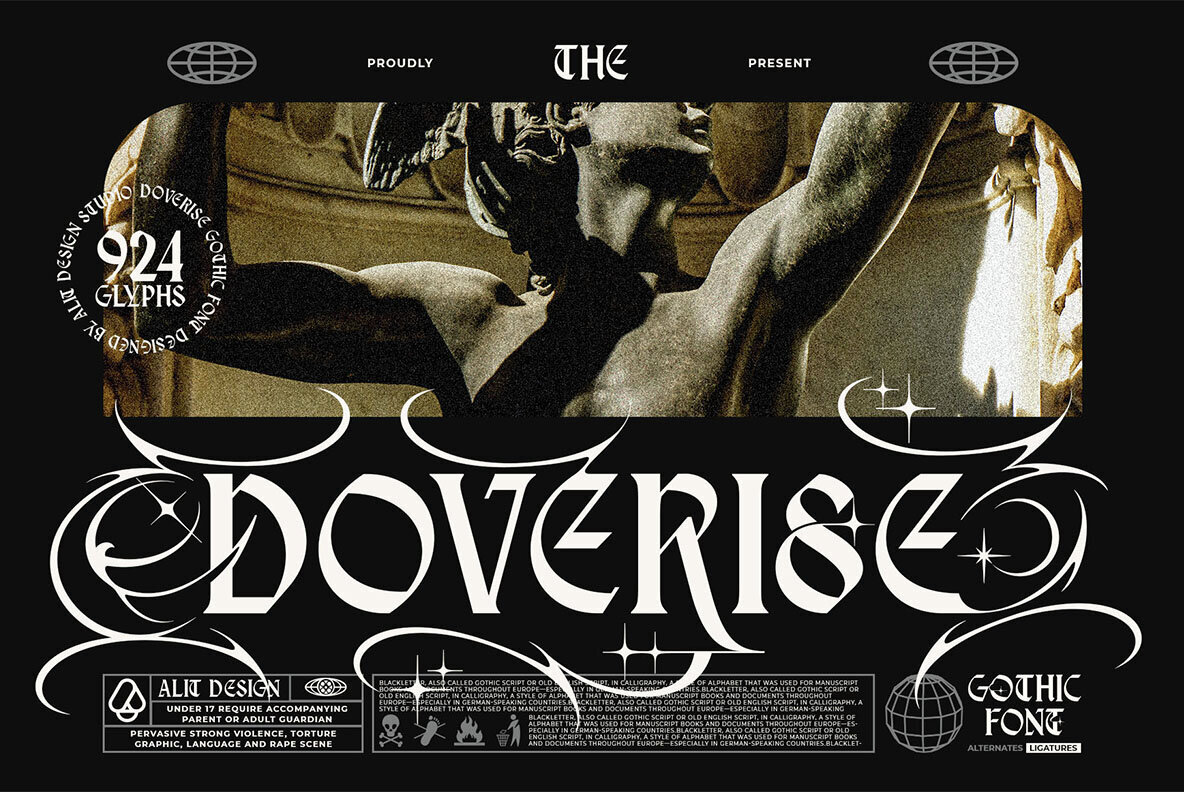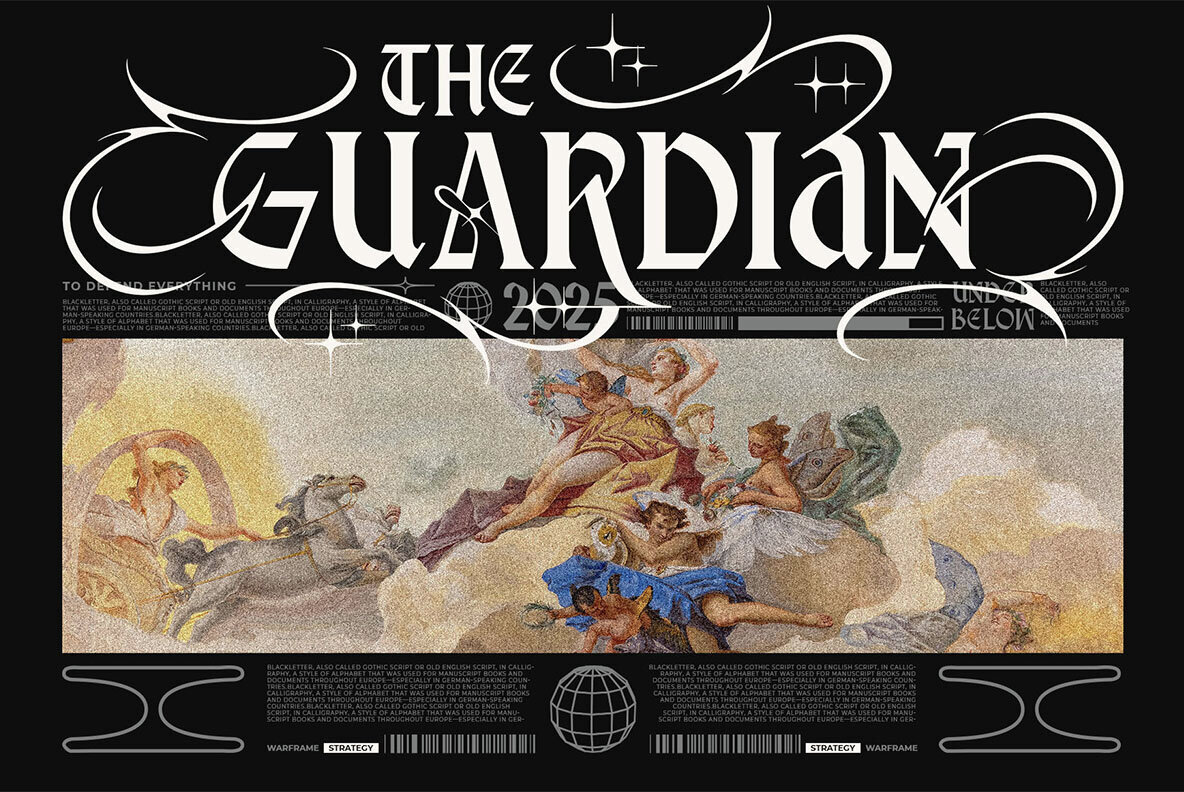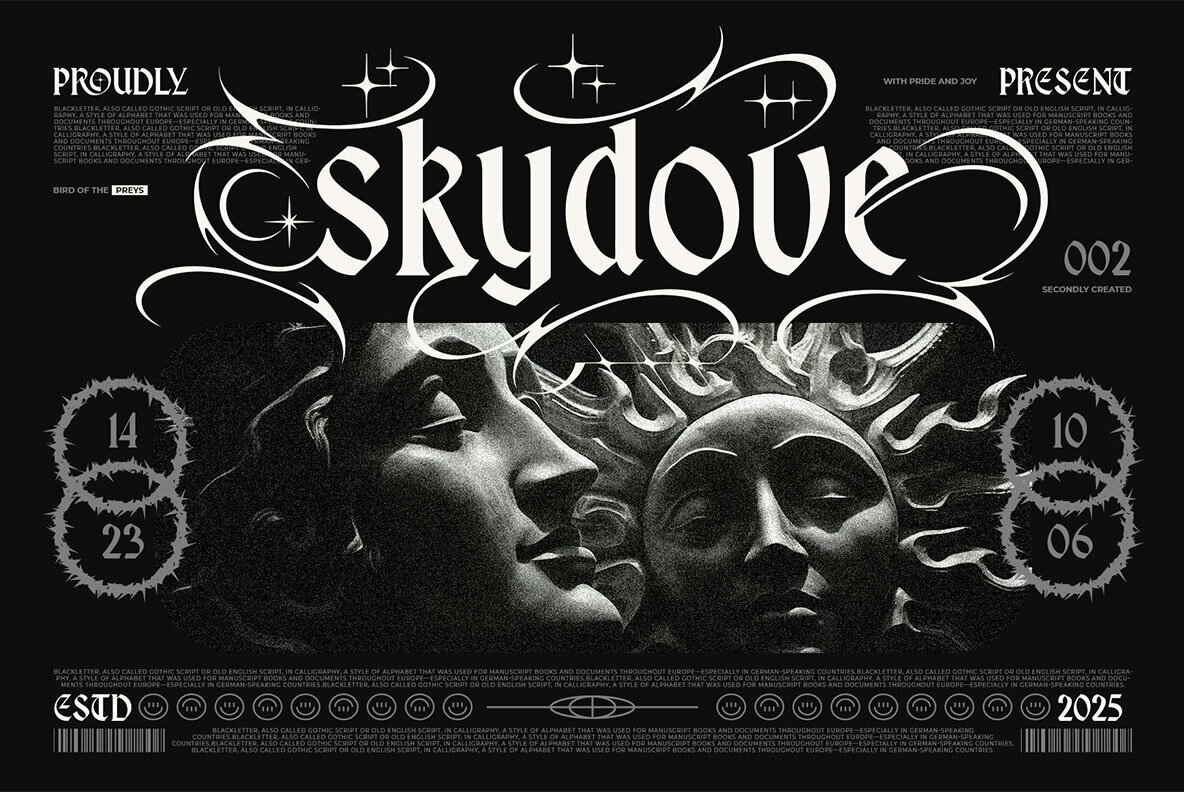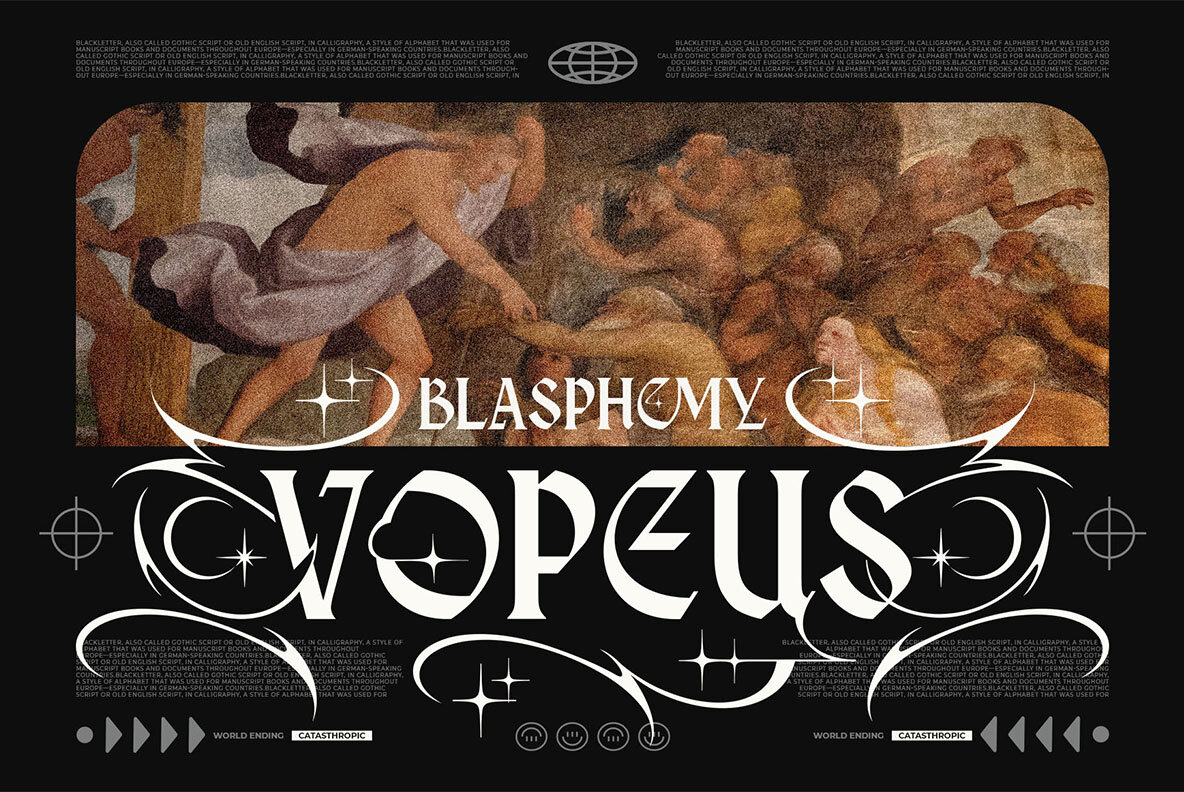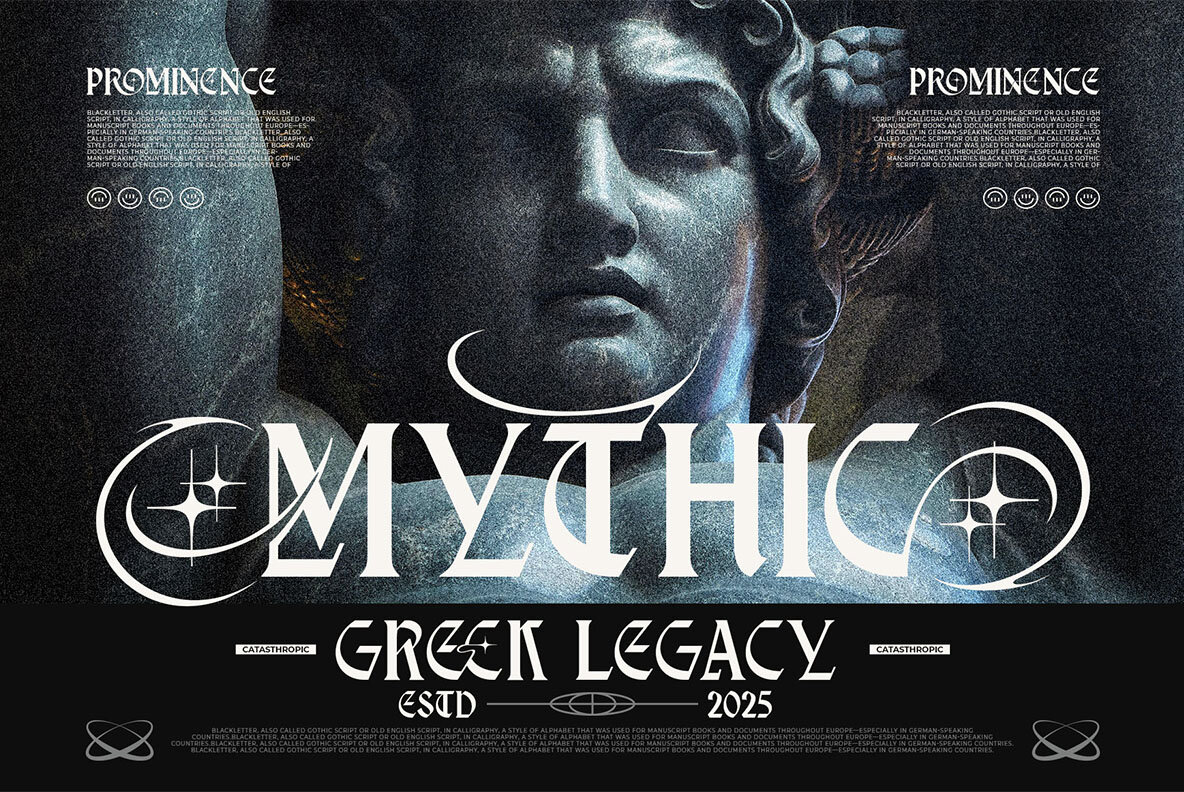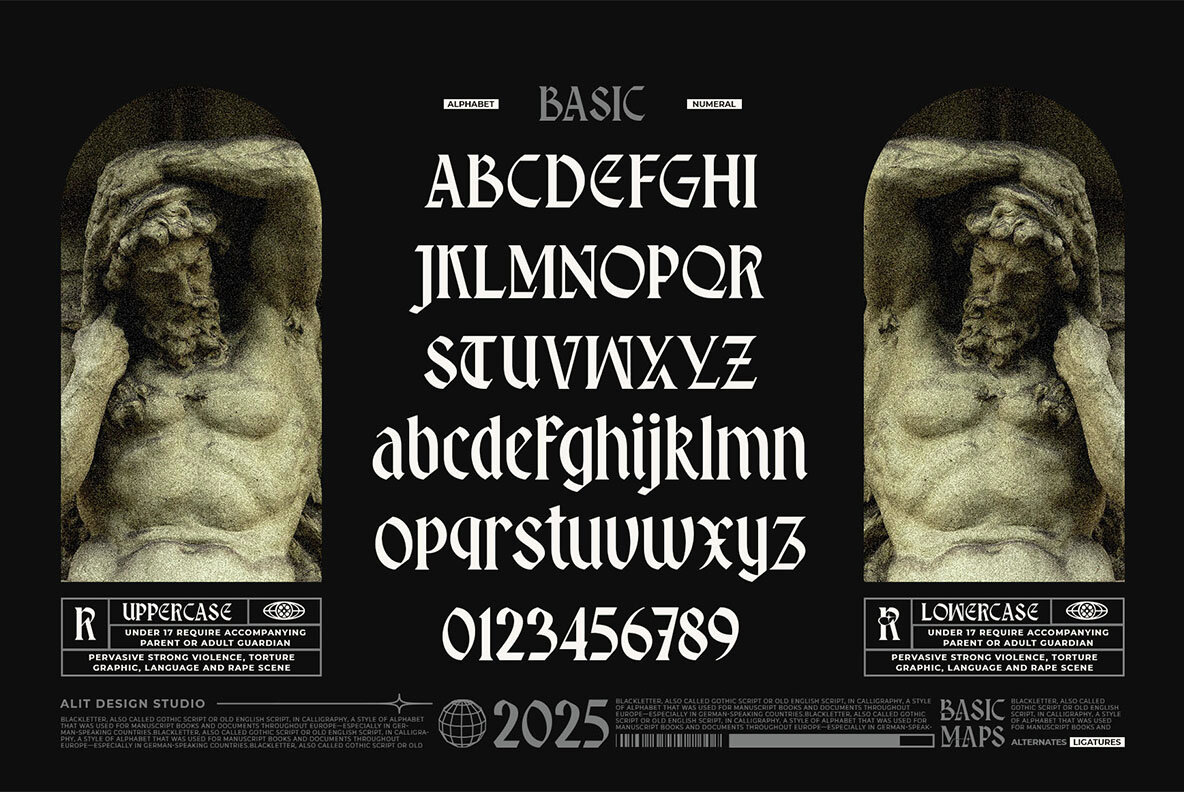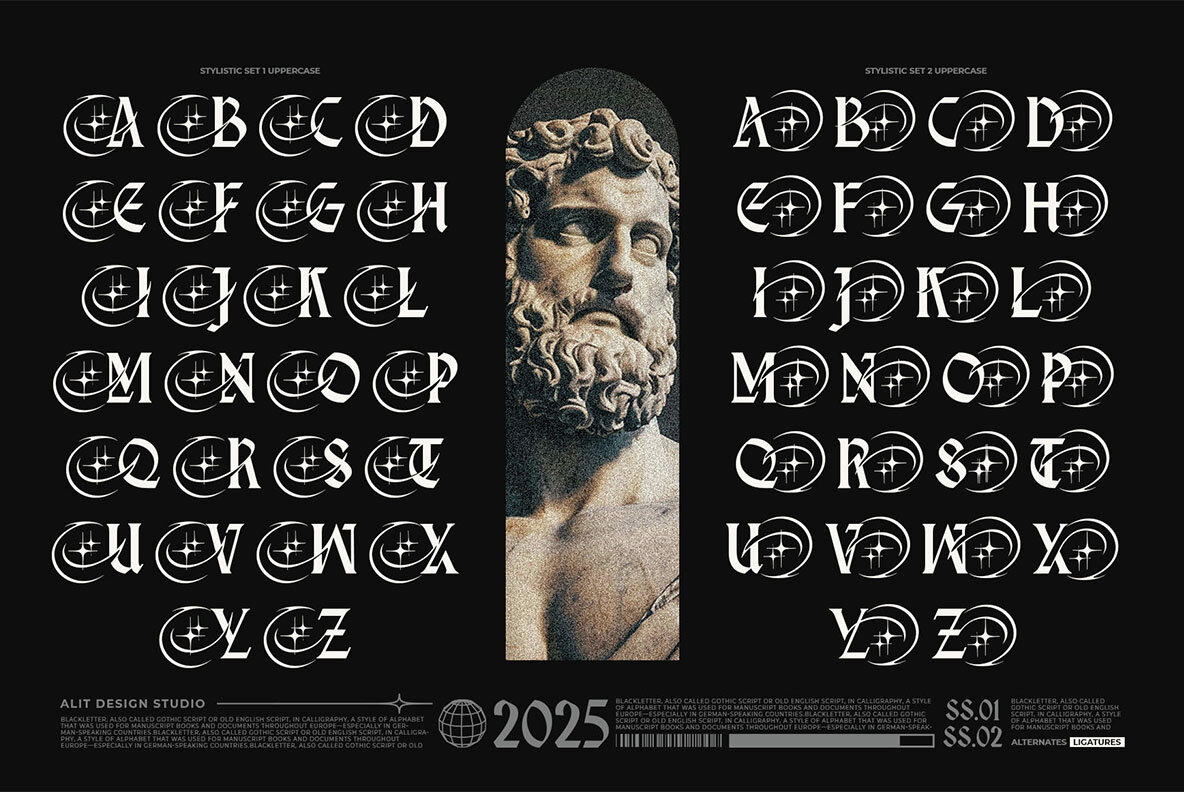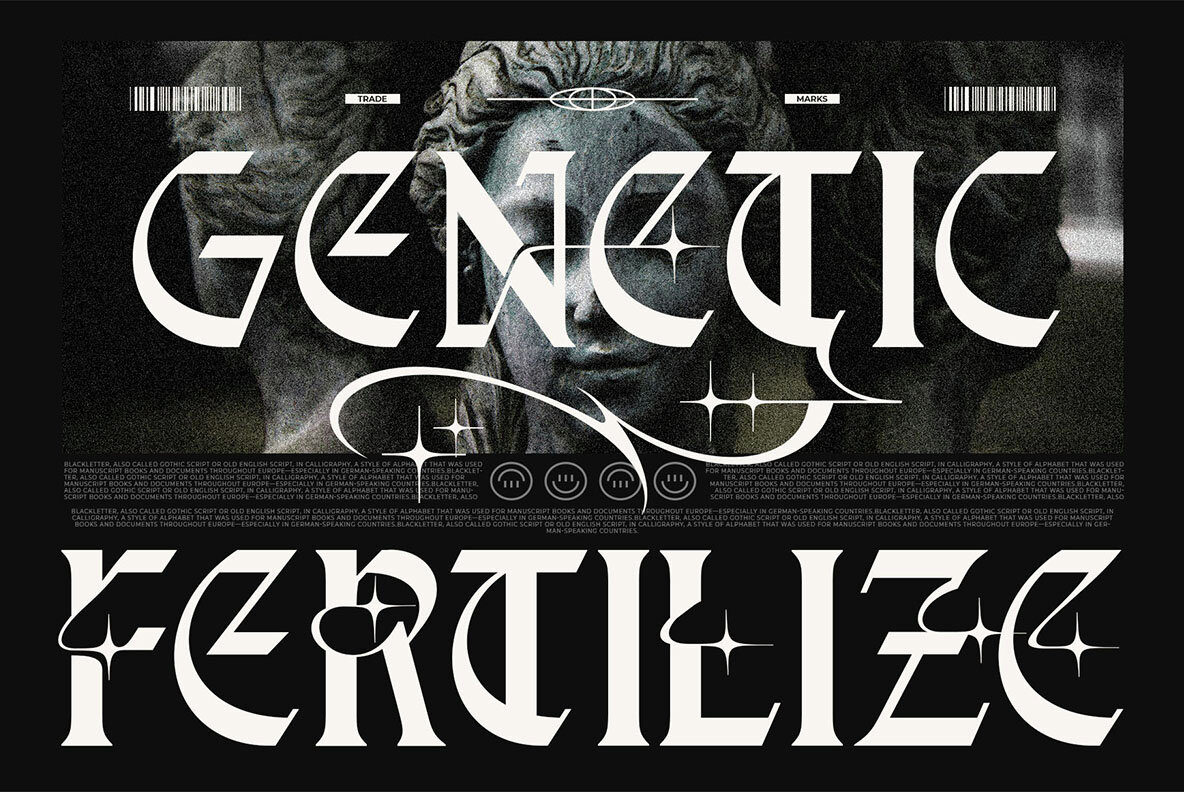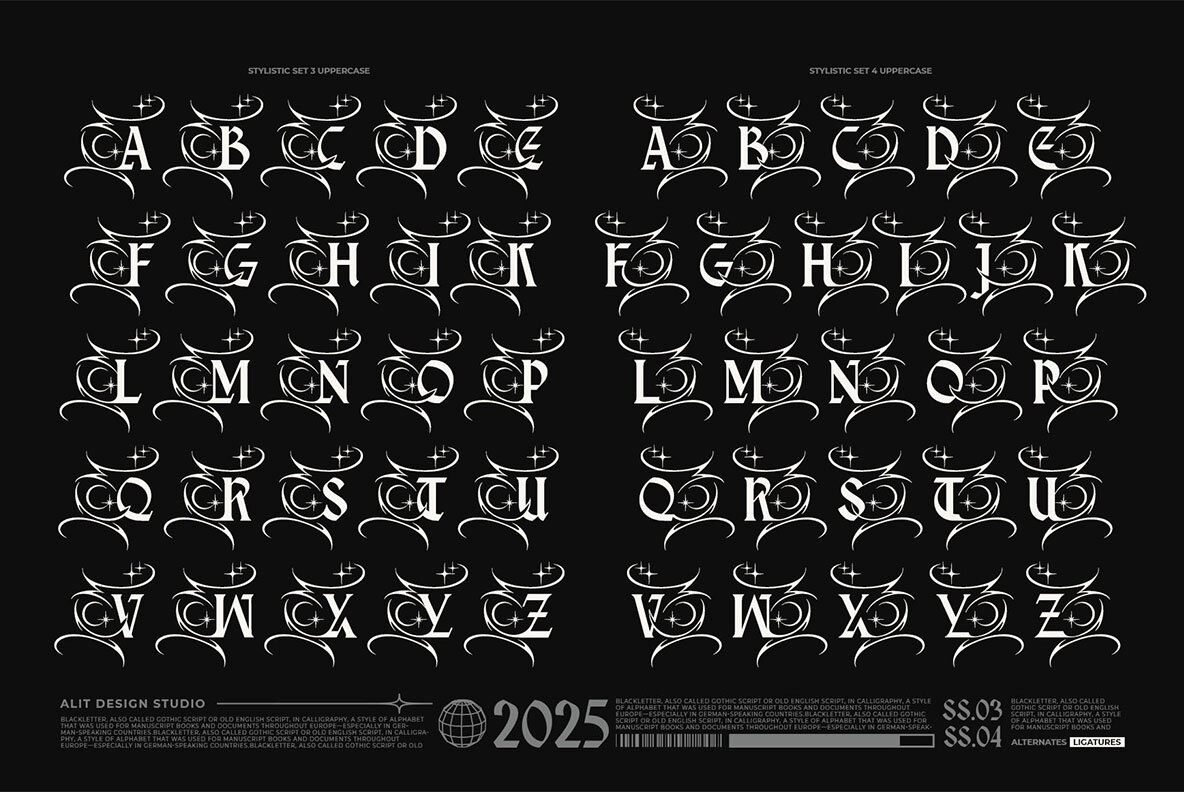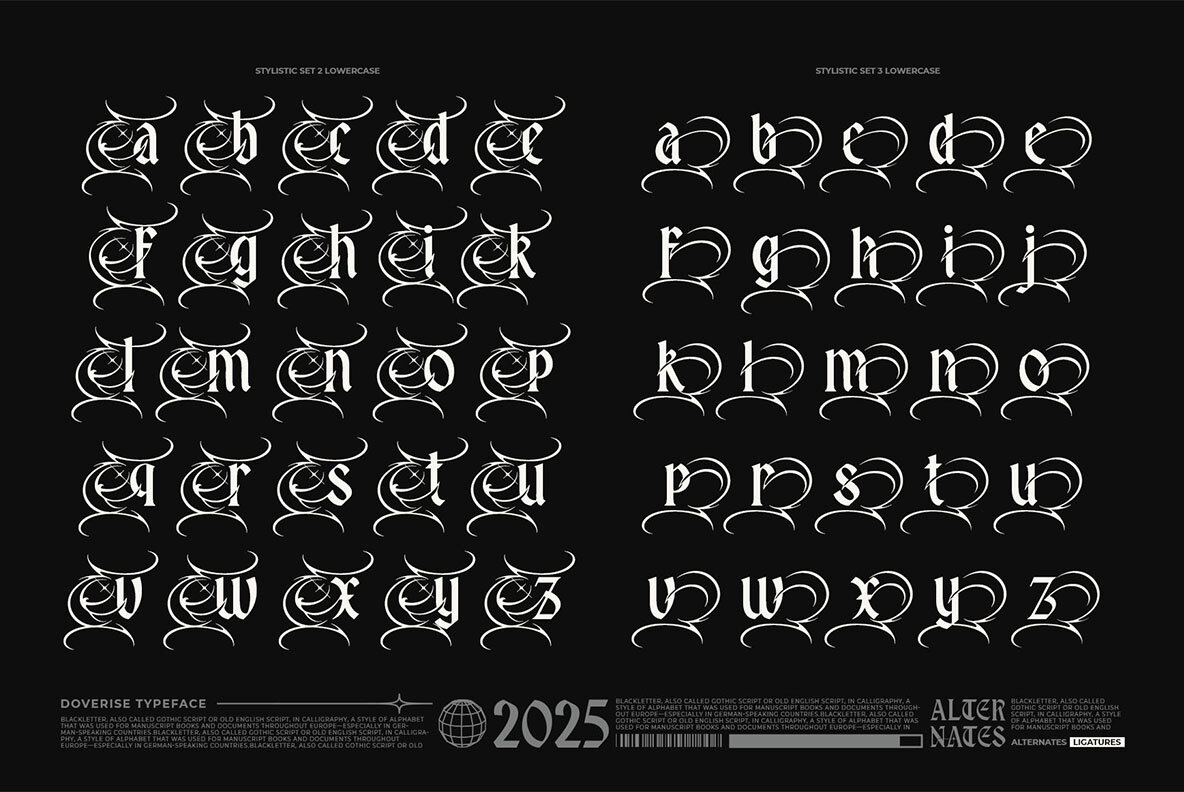
Doverise Font
Doverise Regular
Doverise Typeface by Alit Design is a masterful blend of modern blackletter aesthetics and gothic roots, designed to make a bold and masculine statement. It brings together sharp angular strokes with ornamental curves, accented by tribal-style swashes, delivering an extraordinary visual experience. Perfect for designers aiming for dark, high-impact branding, Doverise's unique style is sure to make any project stand out. Embrace the power and precision of Doverise Typeface to inject gothic elegance into your next visual project.Doverise Typeface: A Modern Gothic Serif